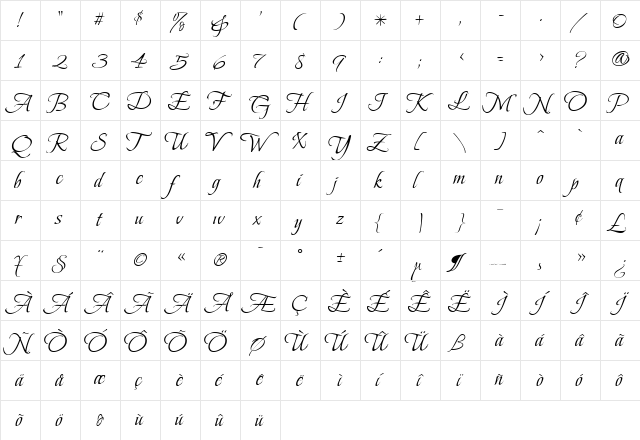
BeauRivageOne Regular Font Preview
BeauRivageOne Regular
Design Context for BeauRivageOne Typeface
BeauRivageOne takes a measured approach to typography — its balanced proportions and neutral character make it a reliable workhorse for both digital and print work.